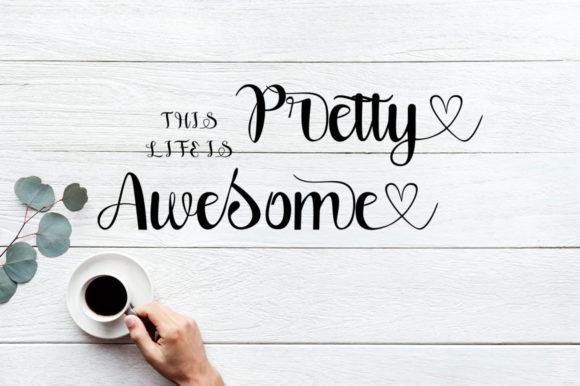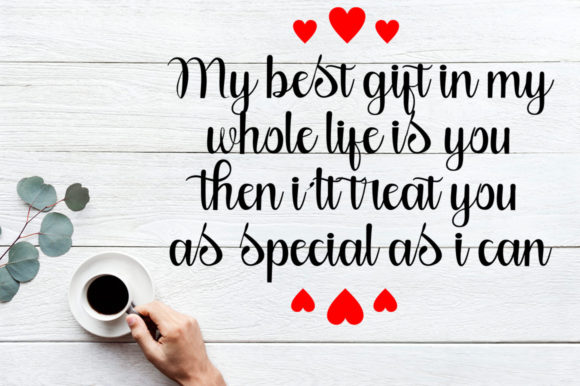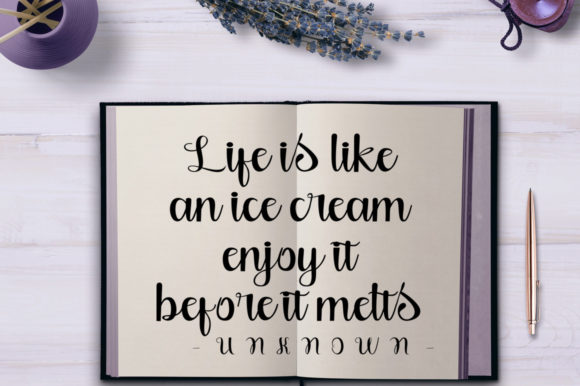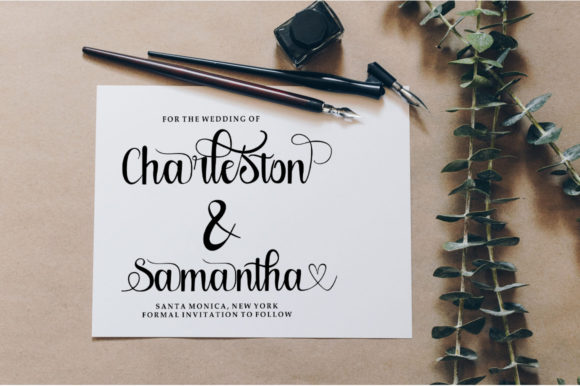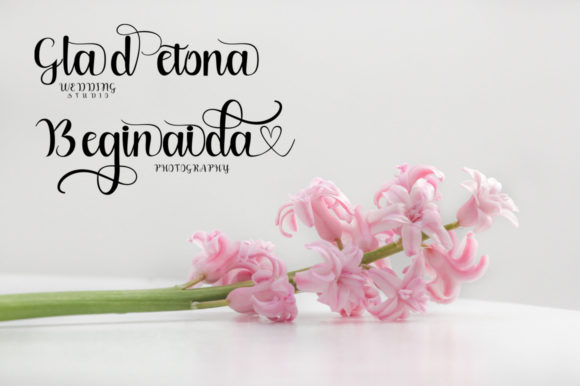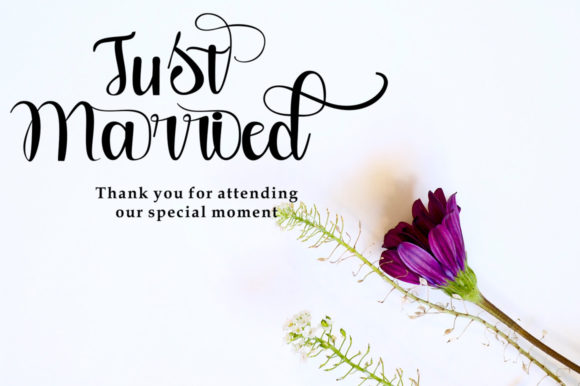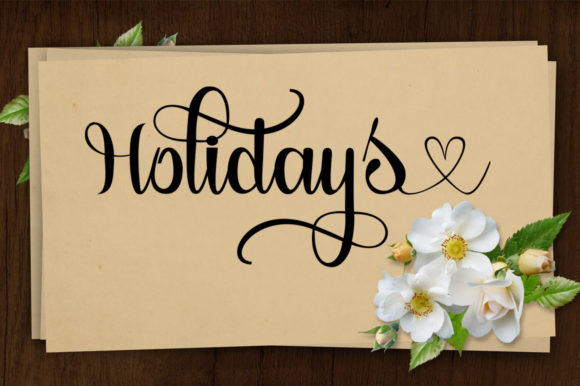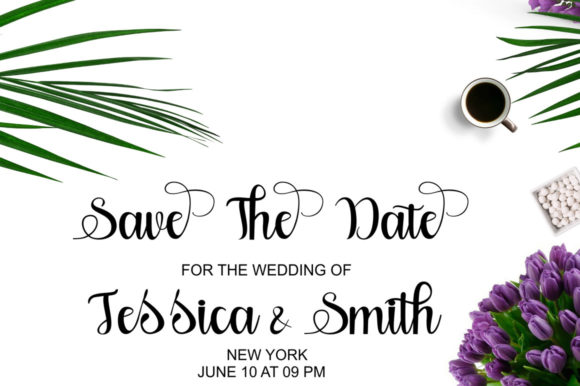
About Jalaliyah Font
Jalaliyah is an elegant script font with a contemporary atmosphere and impeccable form, inspired by timeless classic calligraphy. Not too thin and not too thick, balanced and varied, this font was designed to enhance the beauty of your projects.